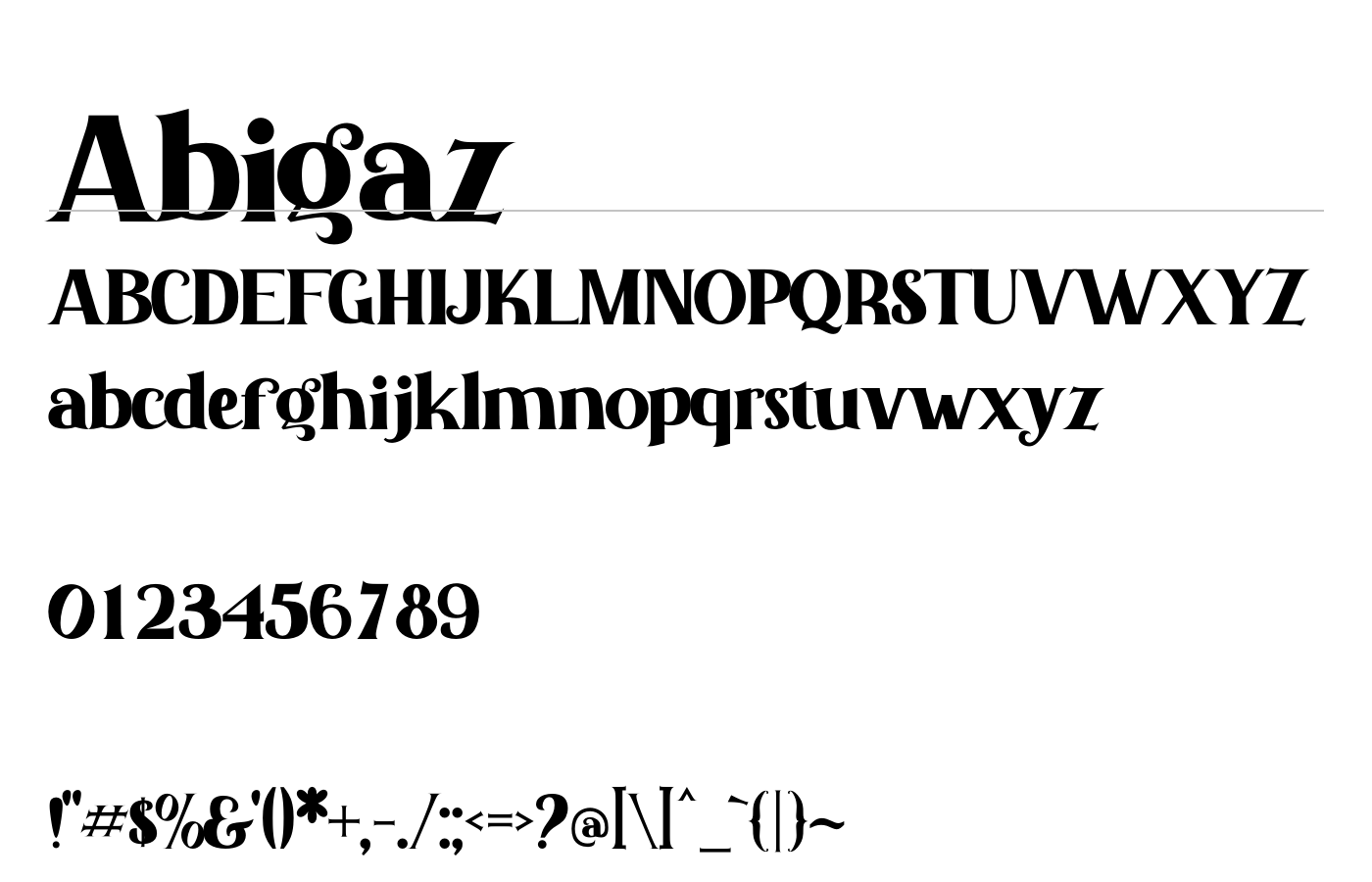
Abigaz is a distinctive serif font that combines classic elegance with playful, unique details. Its medium weight and moderate contrast give it a bold yet refined presence, enhanced by sharp, bracketed serifs and creative letterforms such as the curled "g" and stylish ampersand, making it ideal for eye-catching headlines and sophisticated branding. This font works beautifully in fashion, luxury packaging, and editorial design where a touch of personality and charm is desired.
Abigaz Font